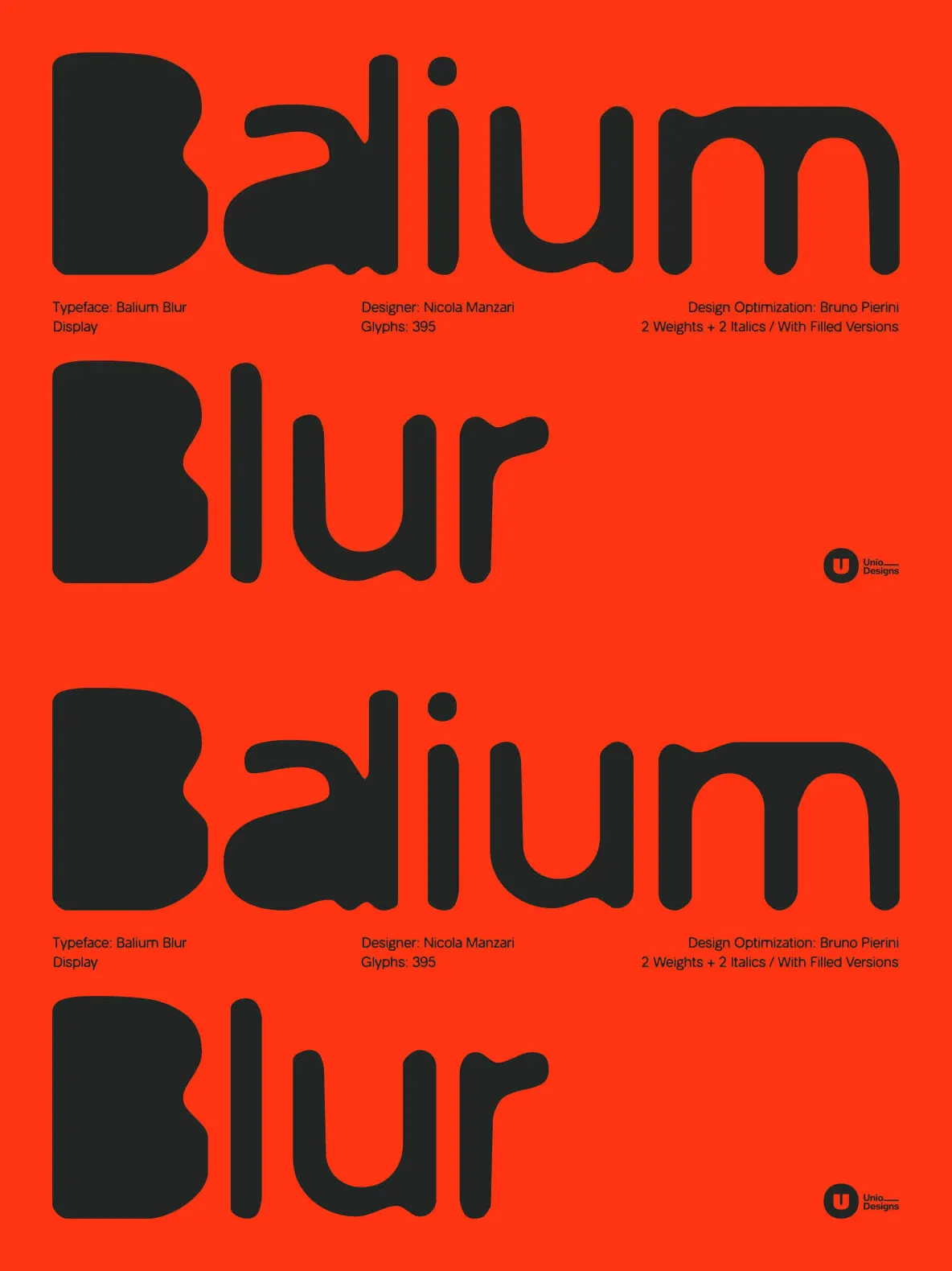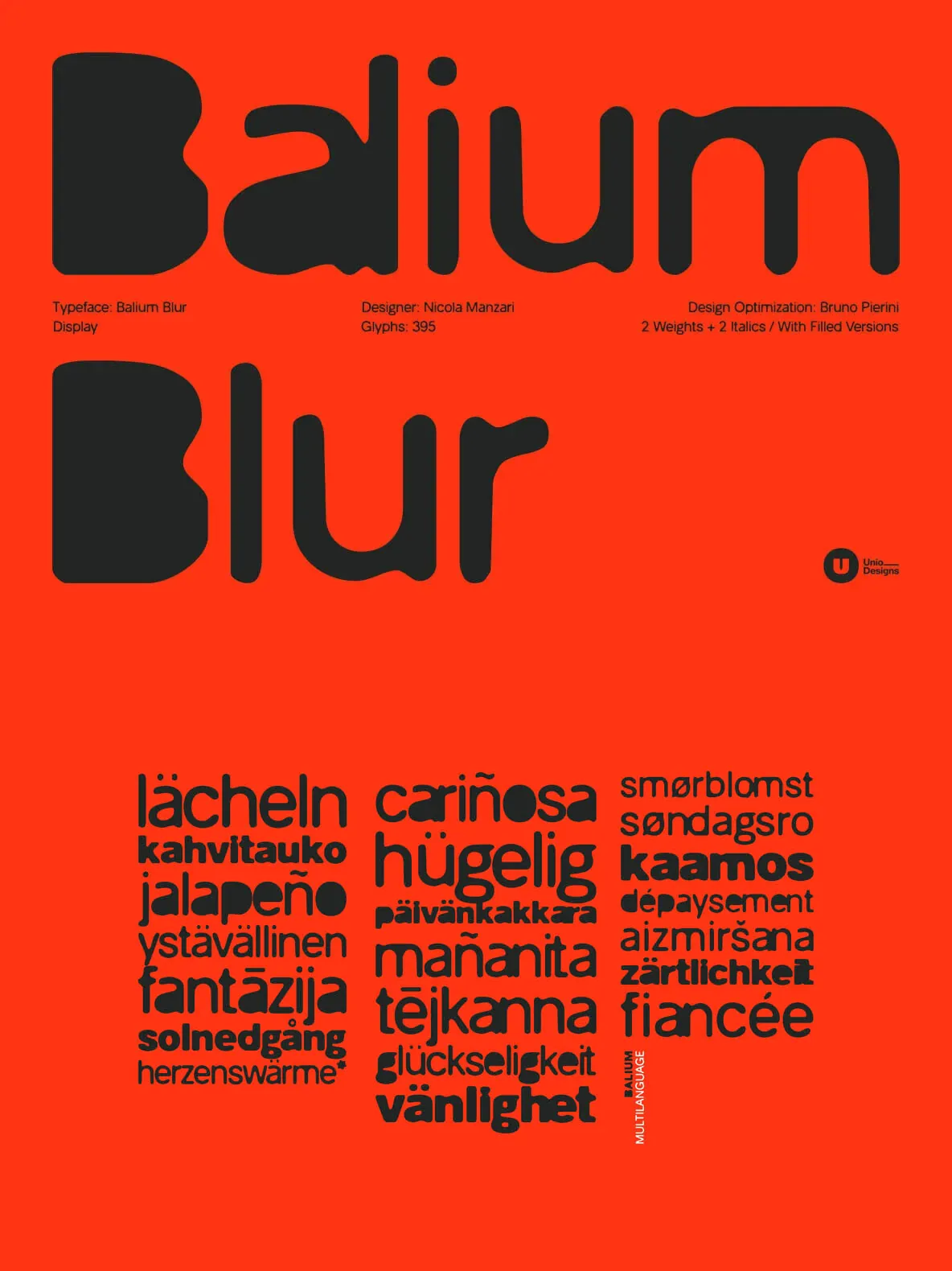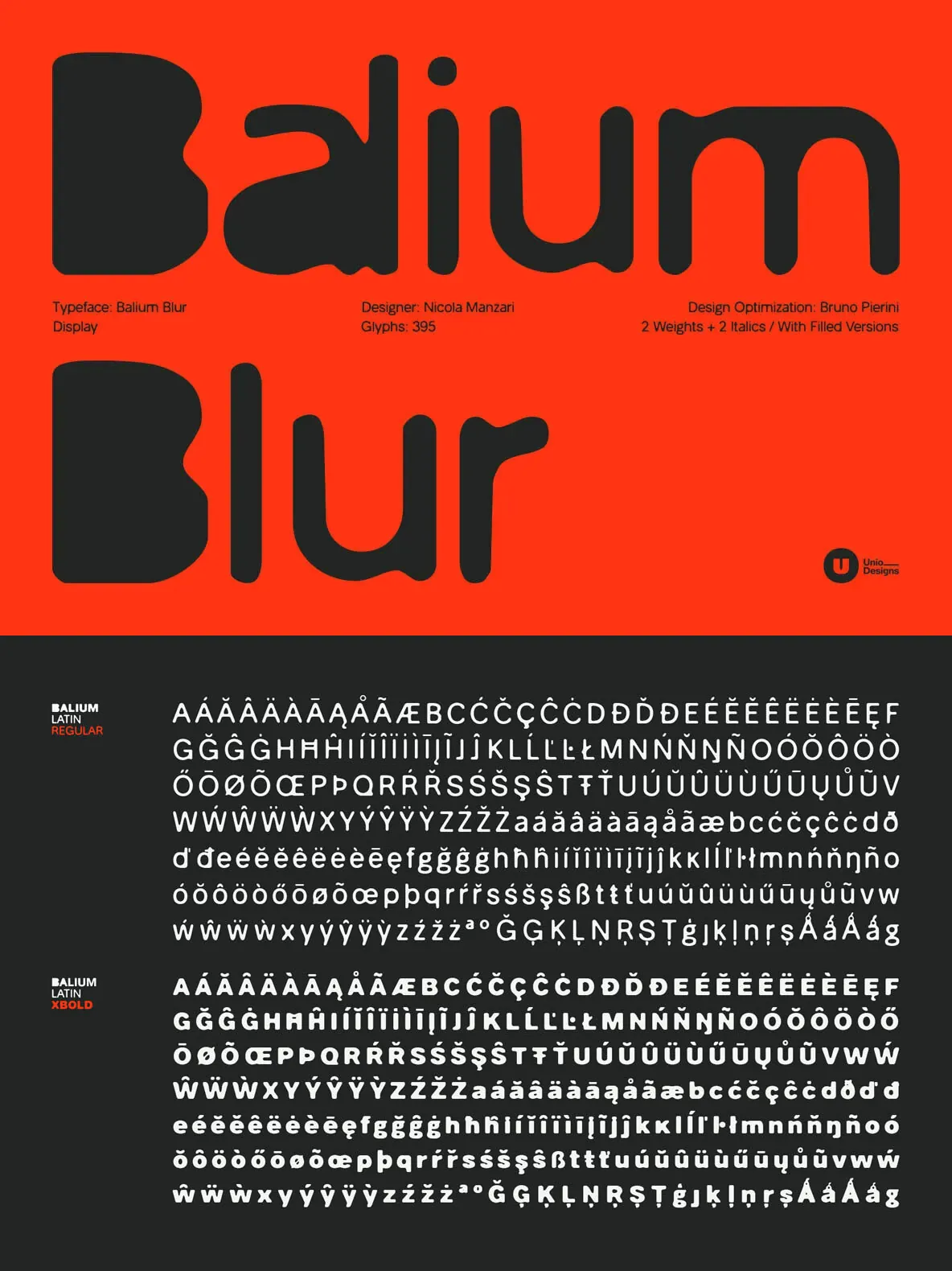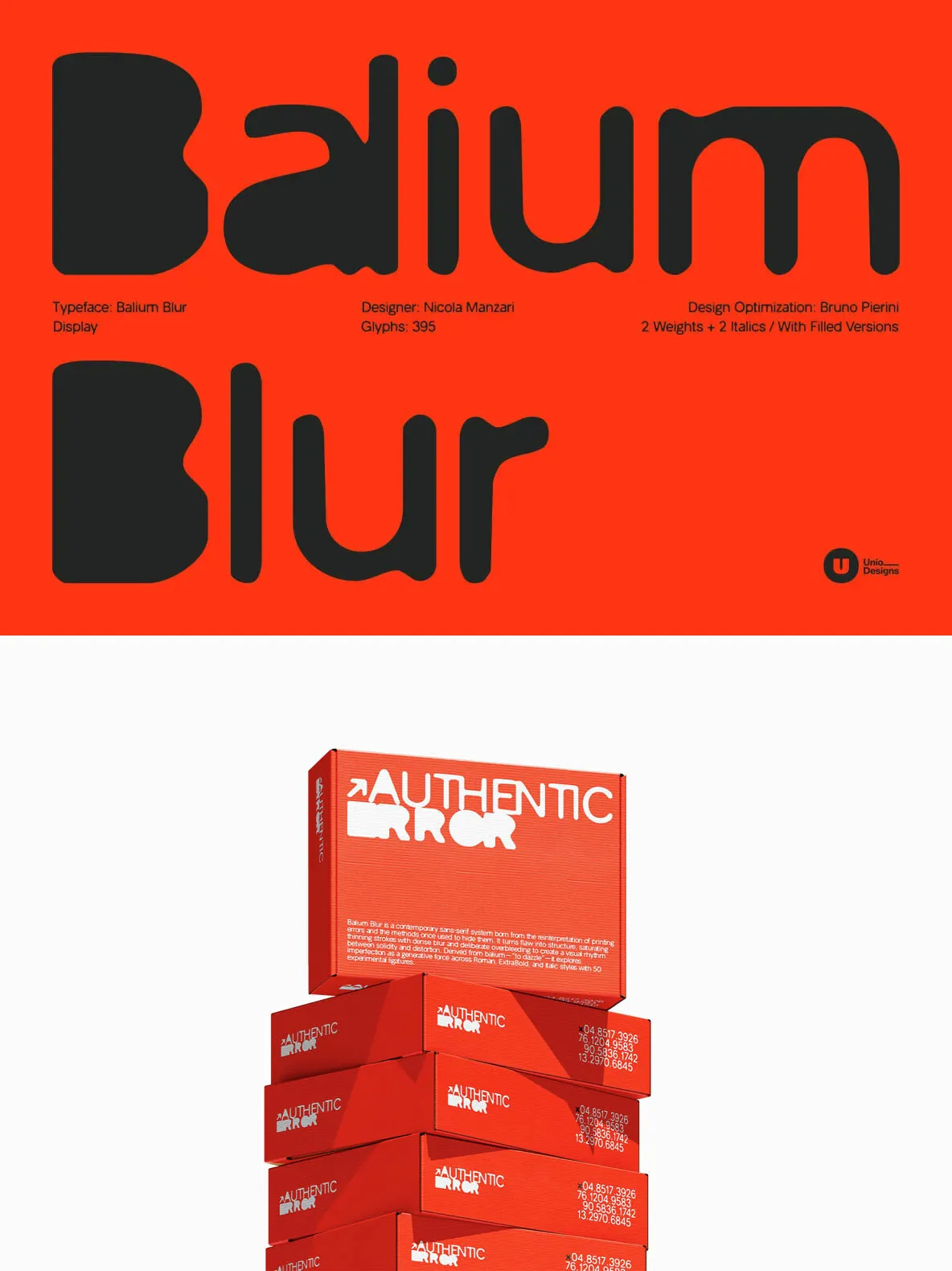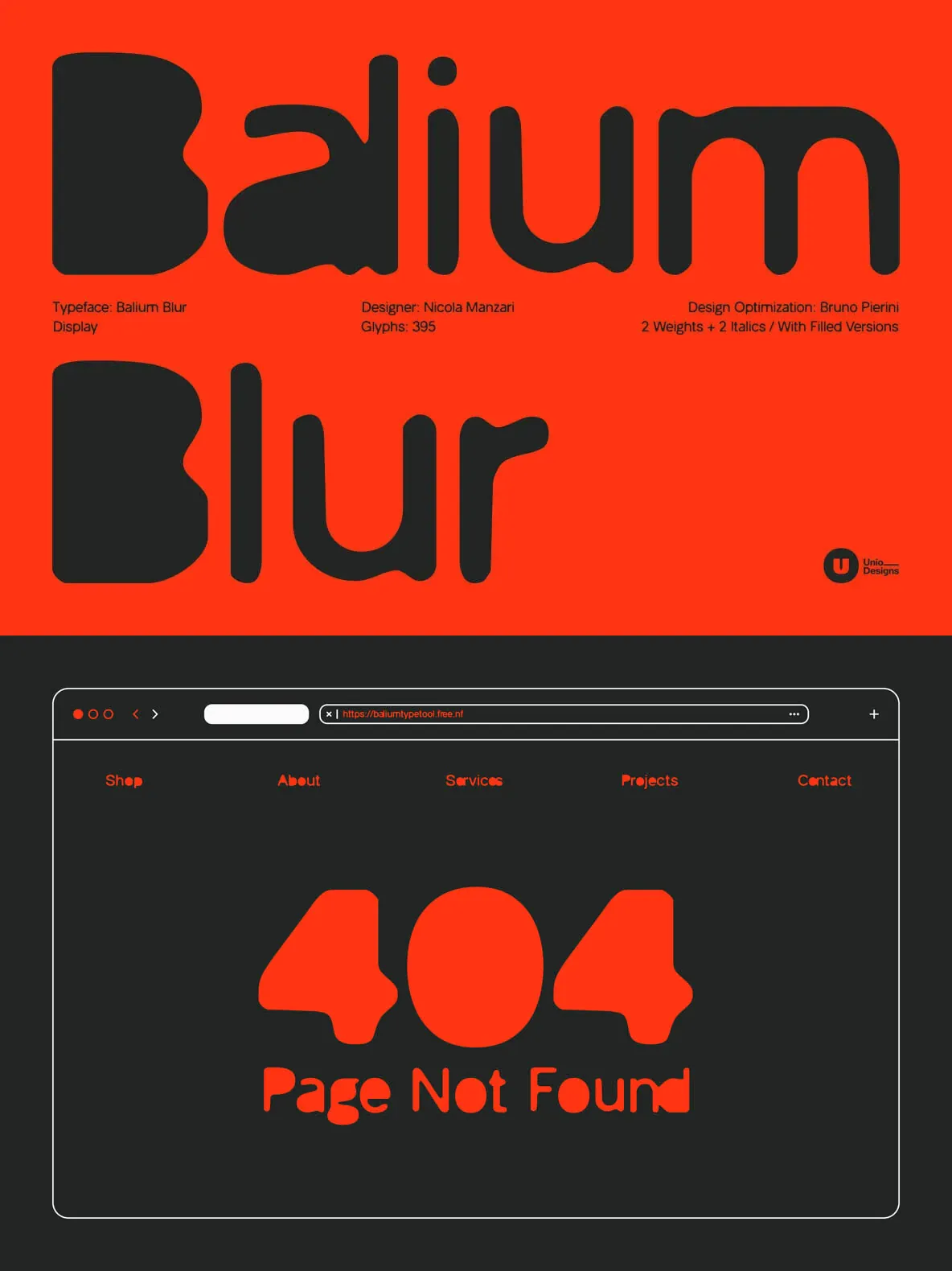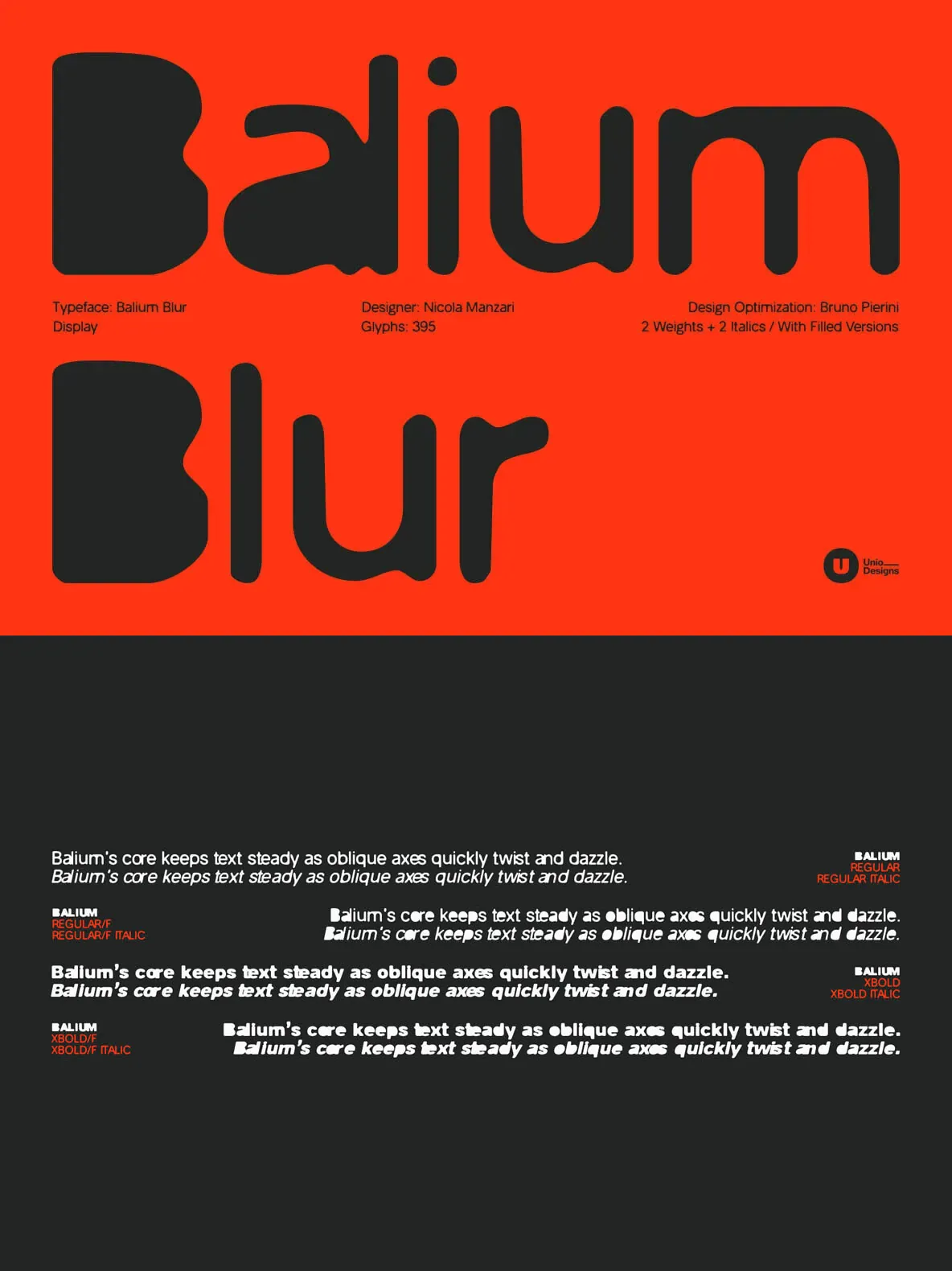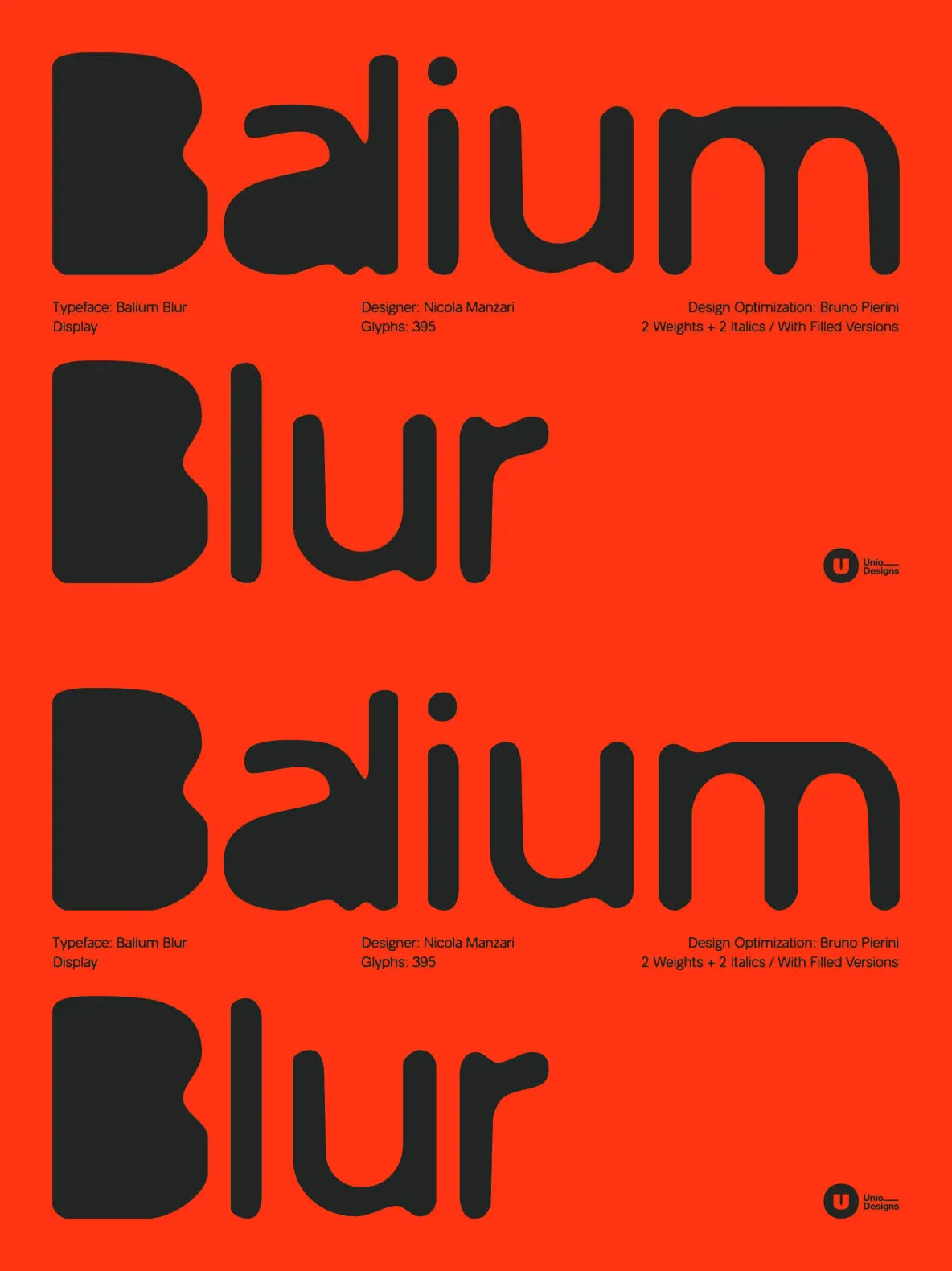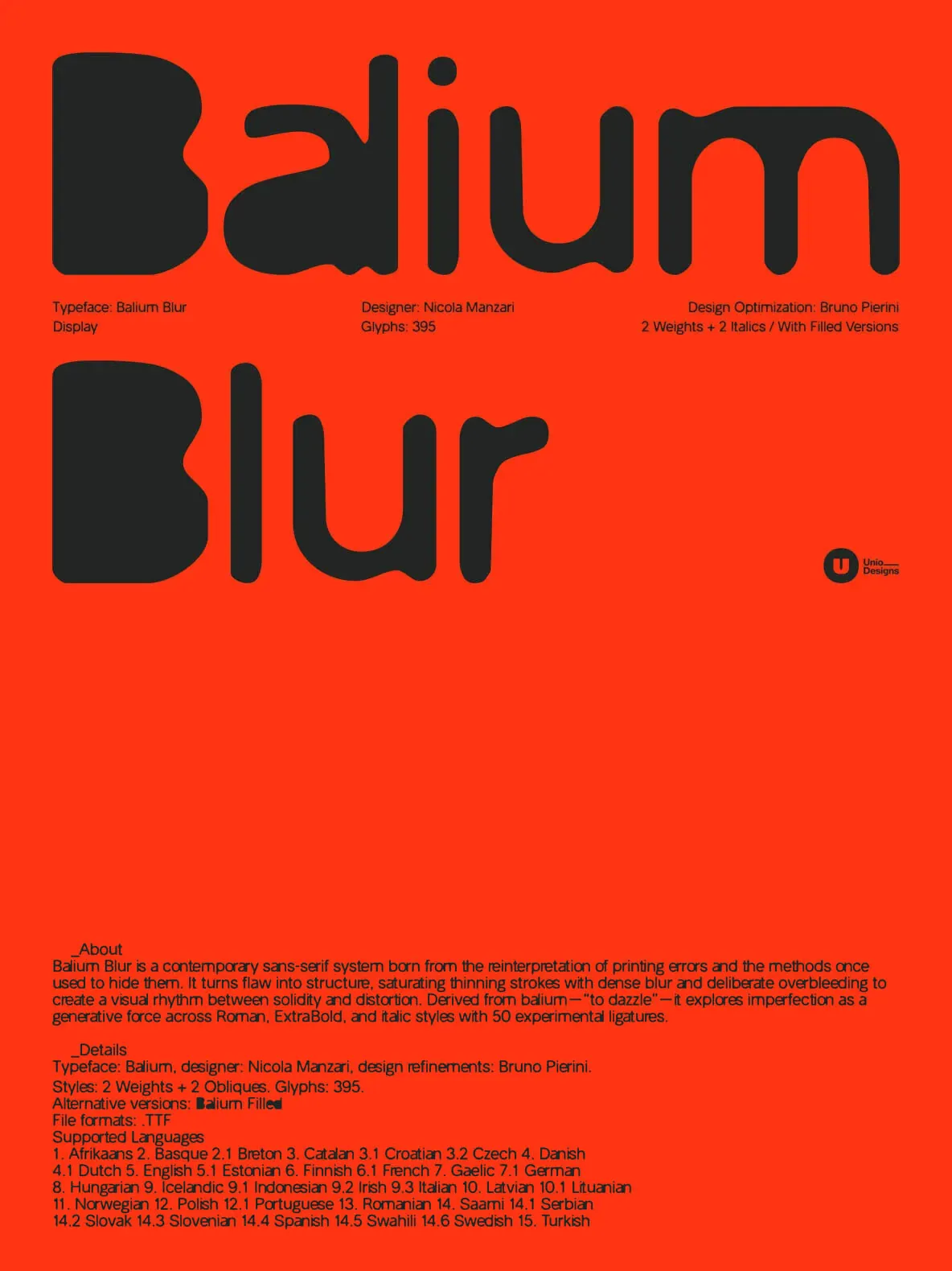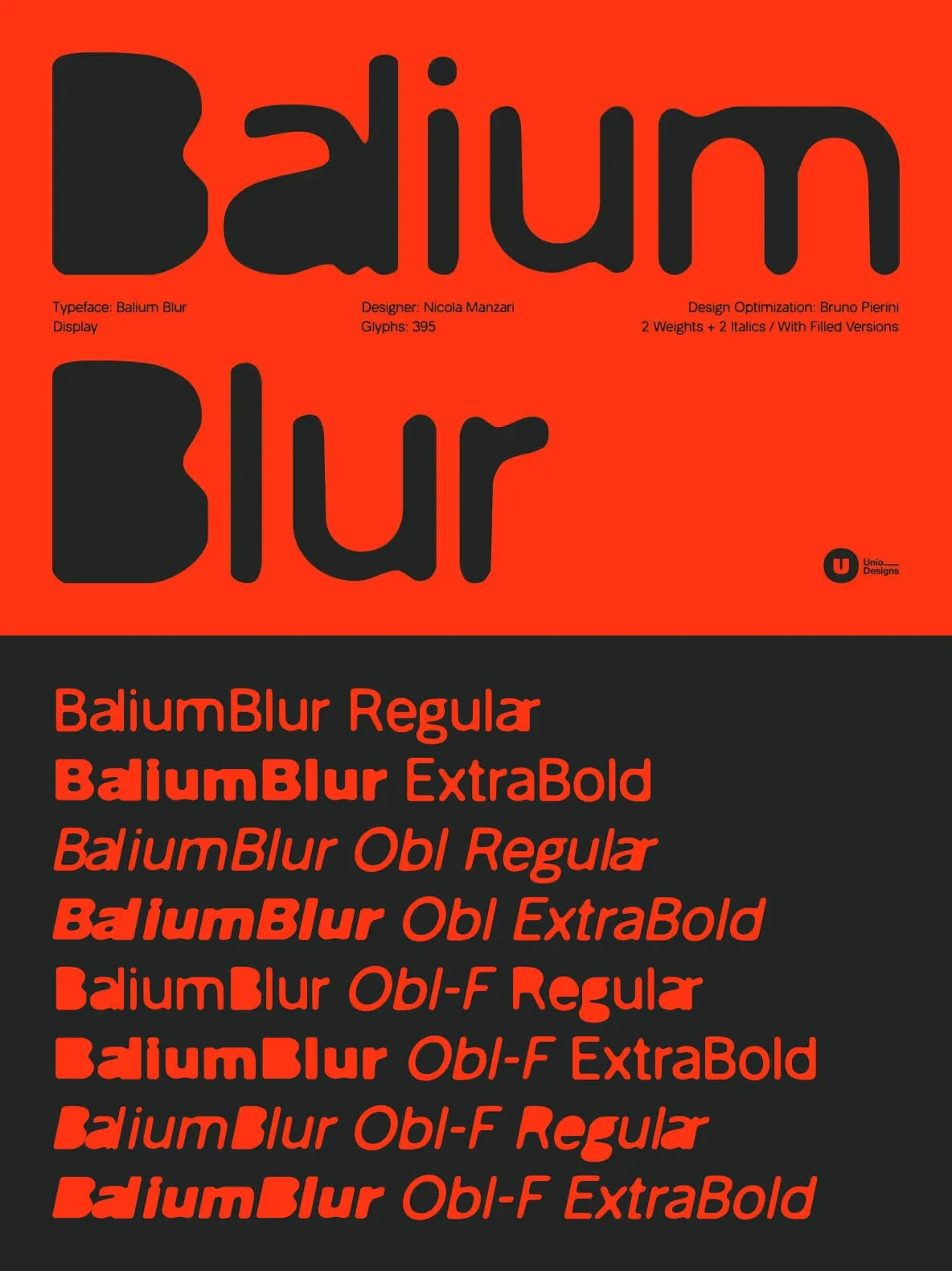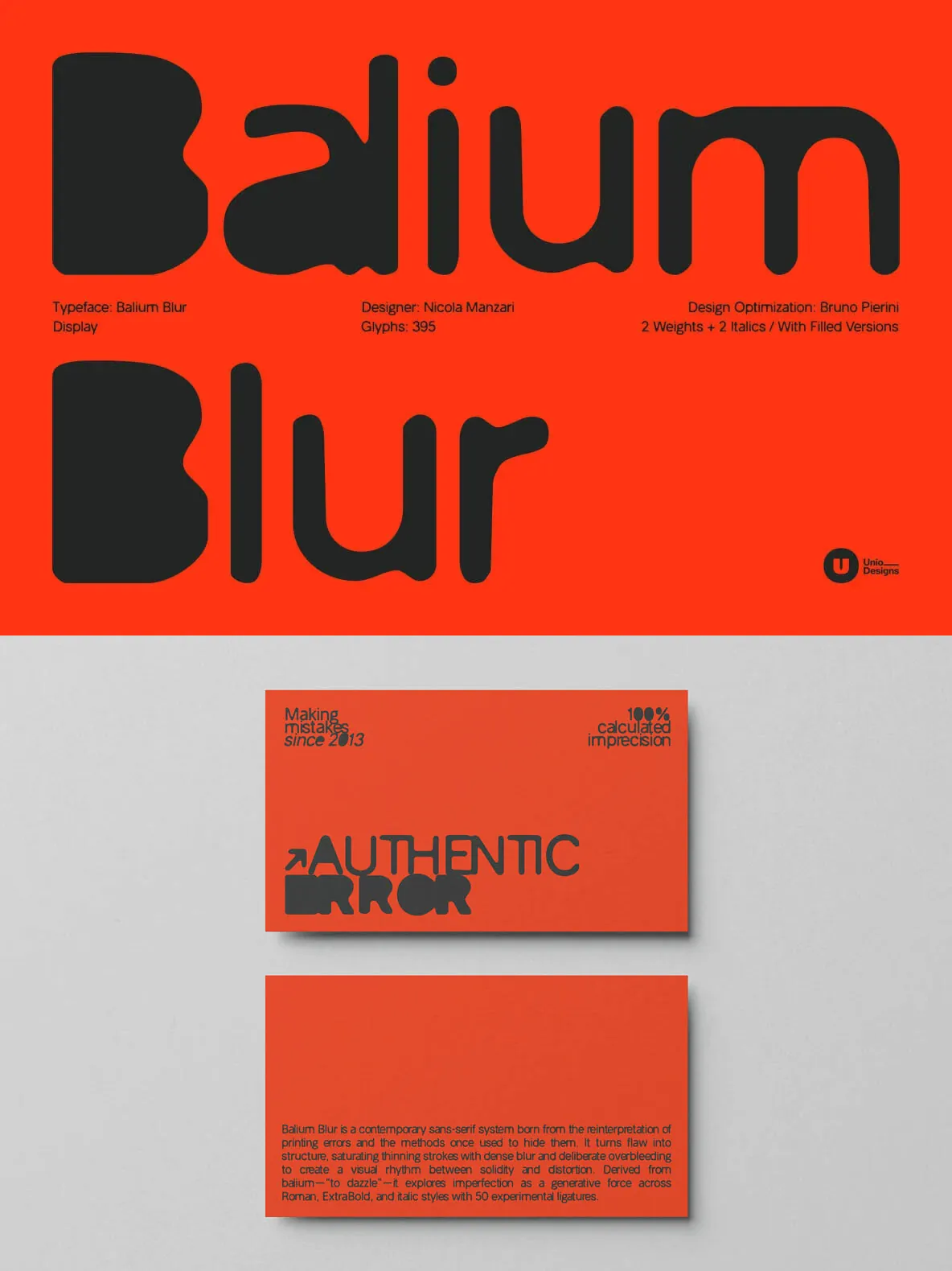
Balium Blur — Overprint as a Typeface System
Balium Blur is a contemporary sans serif type system that treats print error as method. Instead of thinning strokes where forms would normally clog, it pushes ink to the edge—saturating counters, forcing overbleed, and allowing blur to become a repeatable structural motif. The result is a letterform language that moves between clarity and distortion, with irregular dark pockets that read as both texture and signal. For graphic designers working in a culture of algorithmic smoothness, Balium Blur offers a controlled way to reintroduce noise—useful in branding, editorial typography, and visual identities that benefit from a slightly destabilized surface.
The name traces to the Latin balium, linked to abbagliare: to dazzle, to overwhelm with glare. That idea of visual excess is present in the construction itself. Balium Blur doesn’t clean up by subtraction; it builds by accumulation, where extra material becomes the system’s logic and the so-called flaw becomes a generative rule. Across the family, anomalies intensify progressively, giving you a clear axis to dial the effect up or down depending on context.
Used large, the overprint behavior becomes atmospheric and graphic; used smaller, it turns into a subtle pressure in the texture of a line—still legible, but never neutral. Balium Blur remains versatile despite its experimental premise: it can sit comfortably in a headline, carry a poster, or add friction to interface typography when you want the voice of the system to stay audible. If you’re looking for a sans serif that makes process visible—ink, error, and interference included—Balium Blur supplies a coherent framework rather than a one-off gesture.
Two core weights: Roman and Extra Bold, each paired with a matching italic style
Overprint-driven “Filled” styling that increases saturation and blur while keeping proportions consistent
50 discretionary ligatures based on common letter bigrams, designed to overbleed into one another for a nested, self-referential effect
Extended language coverage with 447 glyphs